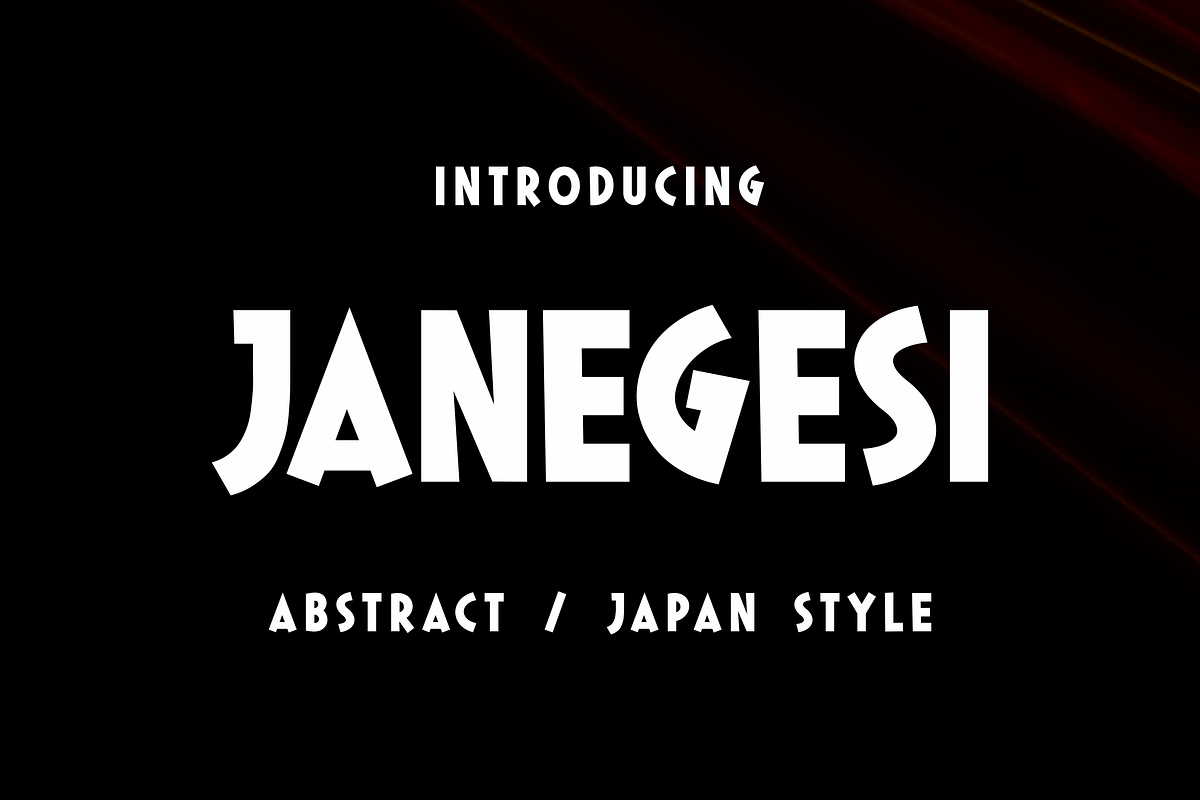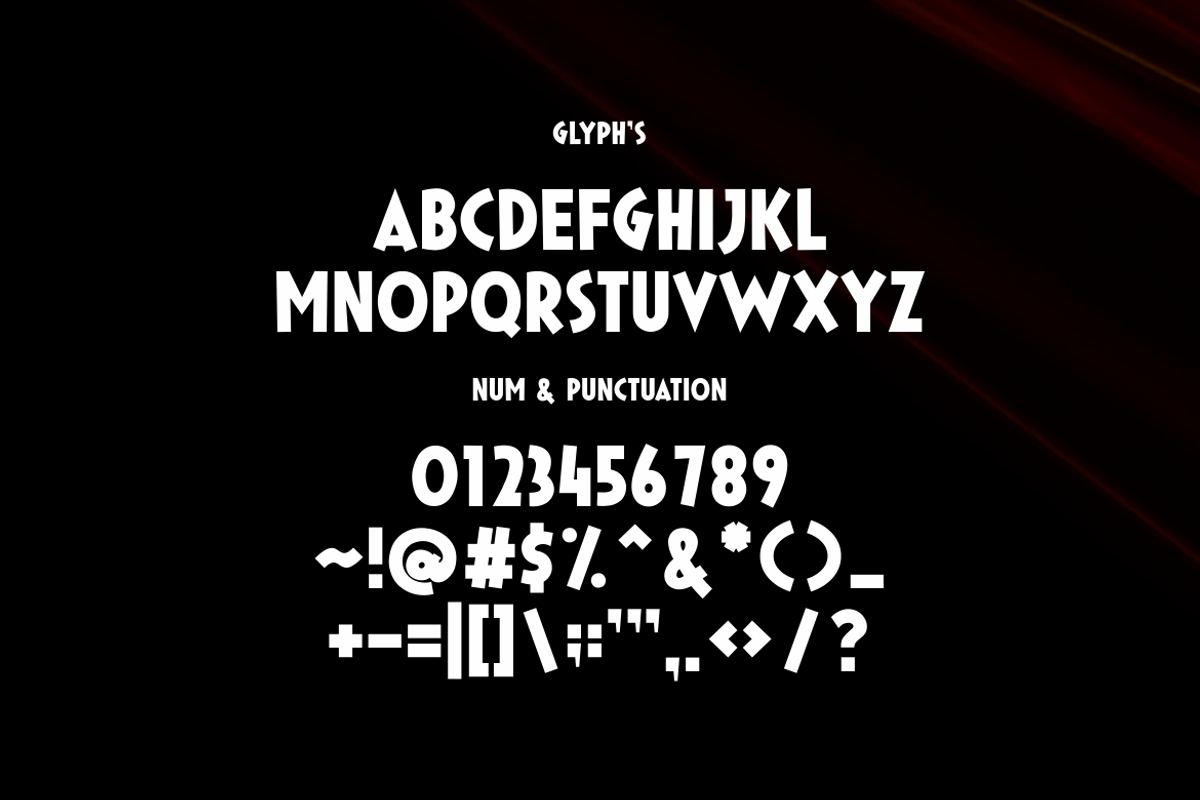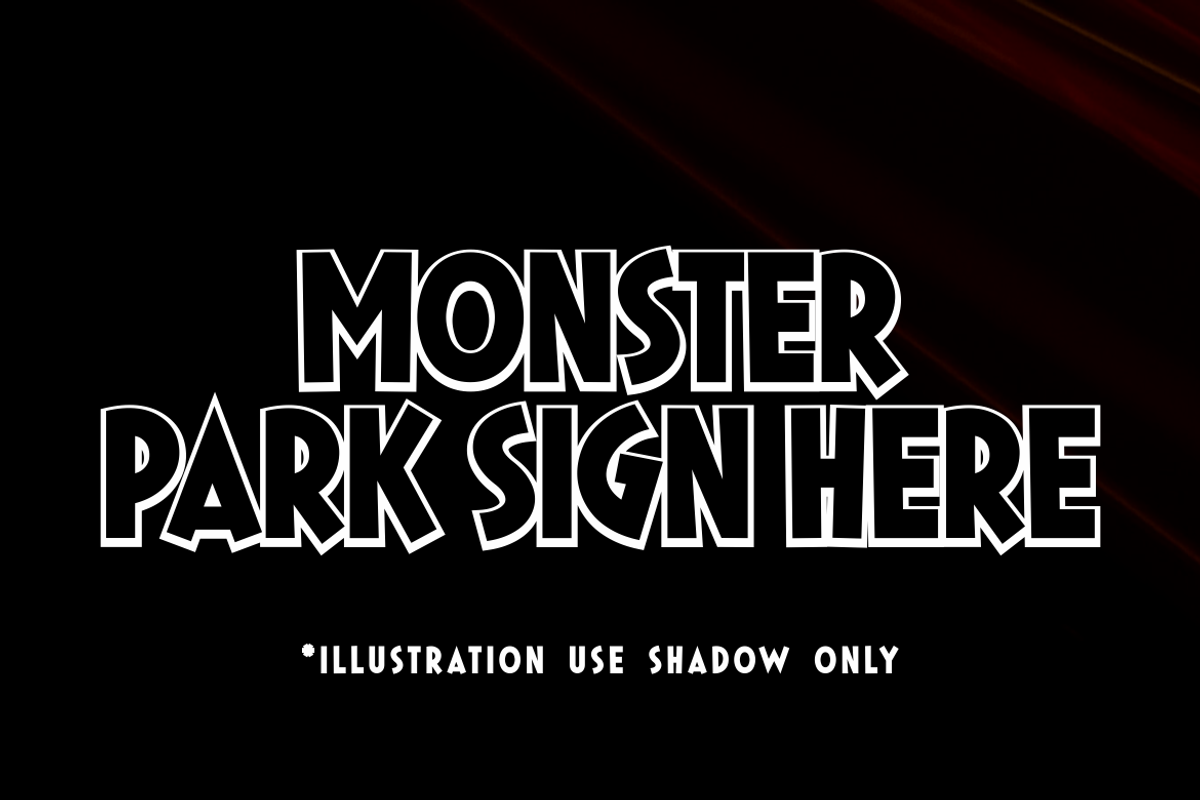
Janegesi - Abstract / Japan Style
JANEGESI is a unique font merging abstract elegance with Japanese aesthetics. Its bold yet fluid strokes balance modernity and tradition, making it perfect for striking banners, action-packed films, serene parks, and tranquil spaces. A true fusion of art and culture.